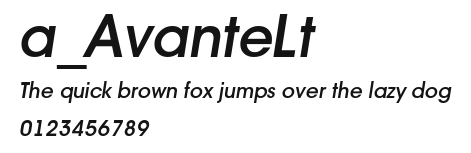
a_AvanteLt Preview
• Font Name: a_AvanteLt
• Font Style: DemiBoldItalic
• Font ID: a_Avante DemiBold
• Full Font Name: a_AvanteLt DemiBoldItalic
• PostScript Name: AAvanteLtDemiBoldItalic
About a_AvanteLt.ttf
a_AvanteLt.ttf is a modern, elegant sans-serif font designed for ultimate readability and visual harmony. Perfect for branding, headlines, web design, and print materials.